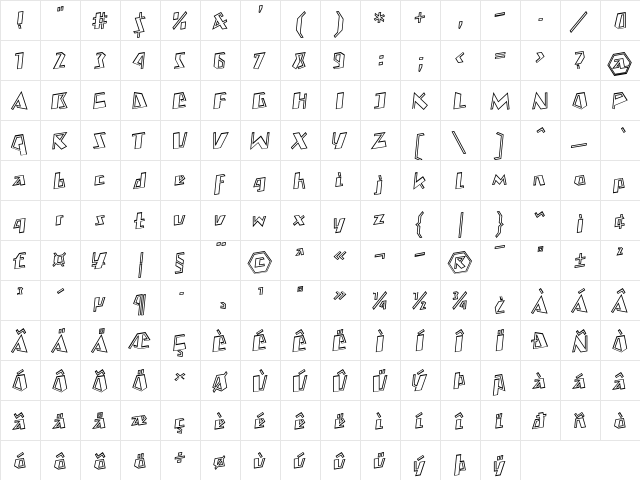
MateoOutlineBoldLL Medium
Design Context for MateoOutlineBoldLL Typeface
MateoOutlineBoldLL brings ornamental detail and strong personality to headlines and identities, where visual impact matters more than quiet functionality. The heavy weight commands attention and anchors typographic hierarchies.
Font Pairing: Pair with a clean neutral sans-serif for body copy to let MateoOutlineBoldLL's character lead without overwhelming the composition.
Pro Tip: Treat MateoOutlineBoldLL as the centrepiece of your typographic hierarchy. One strong heading set in a decorative face can carry an entire layout.